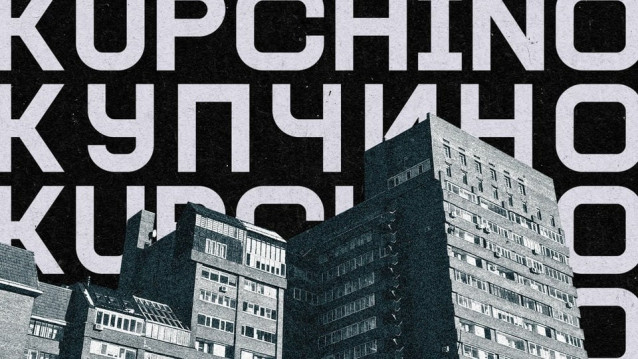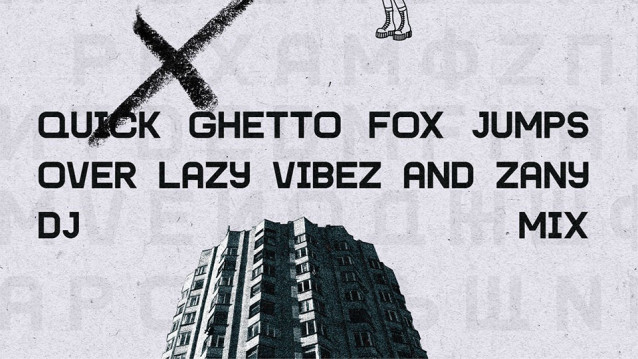
South Ghetto Font, inspired by the Kupchino district of Saint Petersburg. The idea reflects the architecture of the area, raw concrete, straight lines and a sense of structural simplicity.
| Designer Name: | S. Shebestova |